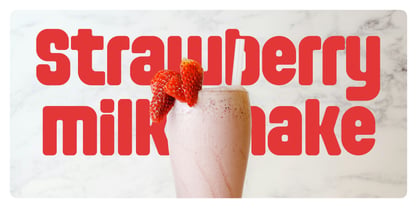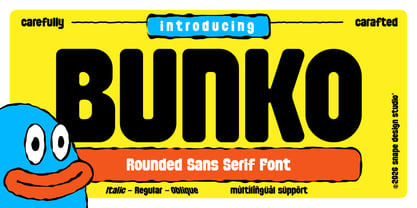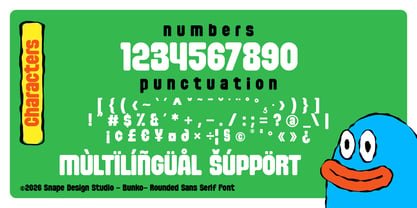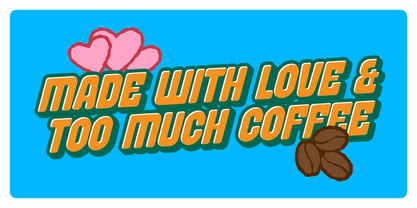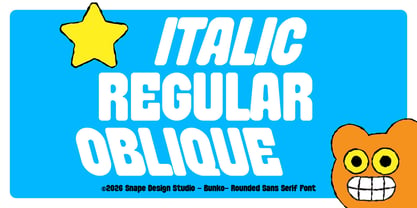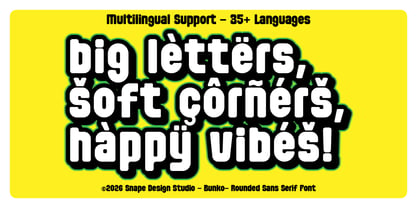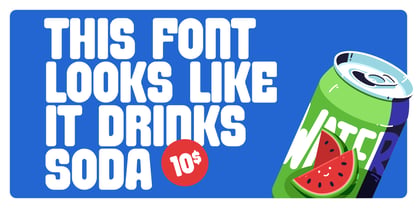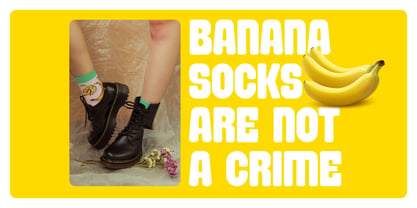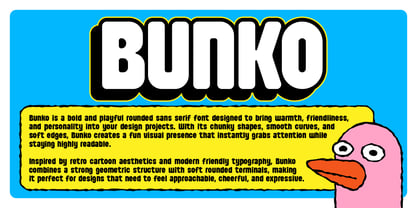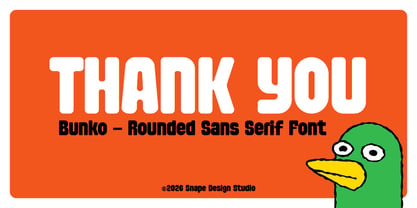
Bunko
The Bunko Font Family was designed by Ario Sabrang and published by snapedsgn. Bunko contains 3 styles and family package options. More about this family
Bunko is a bold and playful rounded sans serif font designed to bring warmth, friendliness, and personality into your design projects. With its chunky shapes, smooth curves, and soft edges, Bunko creates a fun visual presence that instantly grabs attention while staying highly readable. Inspired by retro cartoon aesthetics and modern friendly typography, Bunko combines a strong geometric structure with soft rounded terminals, making it perfect for designs that need to feel approachable, cheerful, and expressive. Whether you're creating eye-catching headlines or playful branding, Bunko delivers a bold yet charming typographic voice. Why Choose Bunko? Bunko is designed for designers who want a rounded sans serif display font that feels lively and memorable. The thick letterforms provide strong visual impact, while the rounded shapes give it a soft and welcoming personality. It works beautifully for projects that require a fun, bold, and modern typographic style. Perfect For Bunko works great for a wide variety of creative projects, including: Logo design Branding and identity Posters and flyers Packaging design Kids products Cartoon and comic designs Social media graphics T-shirt and merchandise YouTube thumbnails Stickers and playful illustrations Font Features Regular Style Italic Style Oblique Style Bold rounded letterforms Smooth and friendly curves Multilingual Support Uppercase & Lowercase Numbers & Punctuation Easy to read display style Design Style Bunko blends elements of: Rounded Sans Serif Playful Display Font Cartoon Typography Retro Fun Style This combination makes Bunko ideal for designers looking for a friendly bold font with personality. Multilingual Support Bunko includes multilingual characters, making it suitable for international projects and global branding. If you have any inquiries or need assistance, please feel free to contact us. We appreciate your support in enhancing your creative projects! Best Regards, Snape Design Studio.
Designers: Ario Sabrang